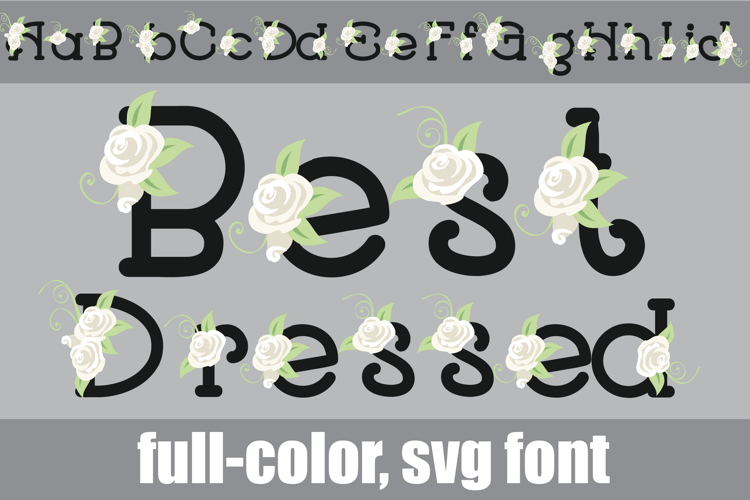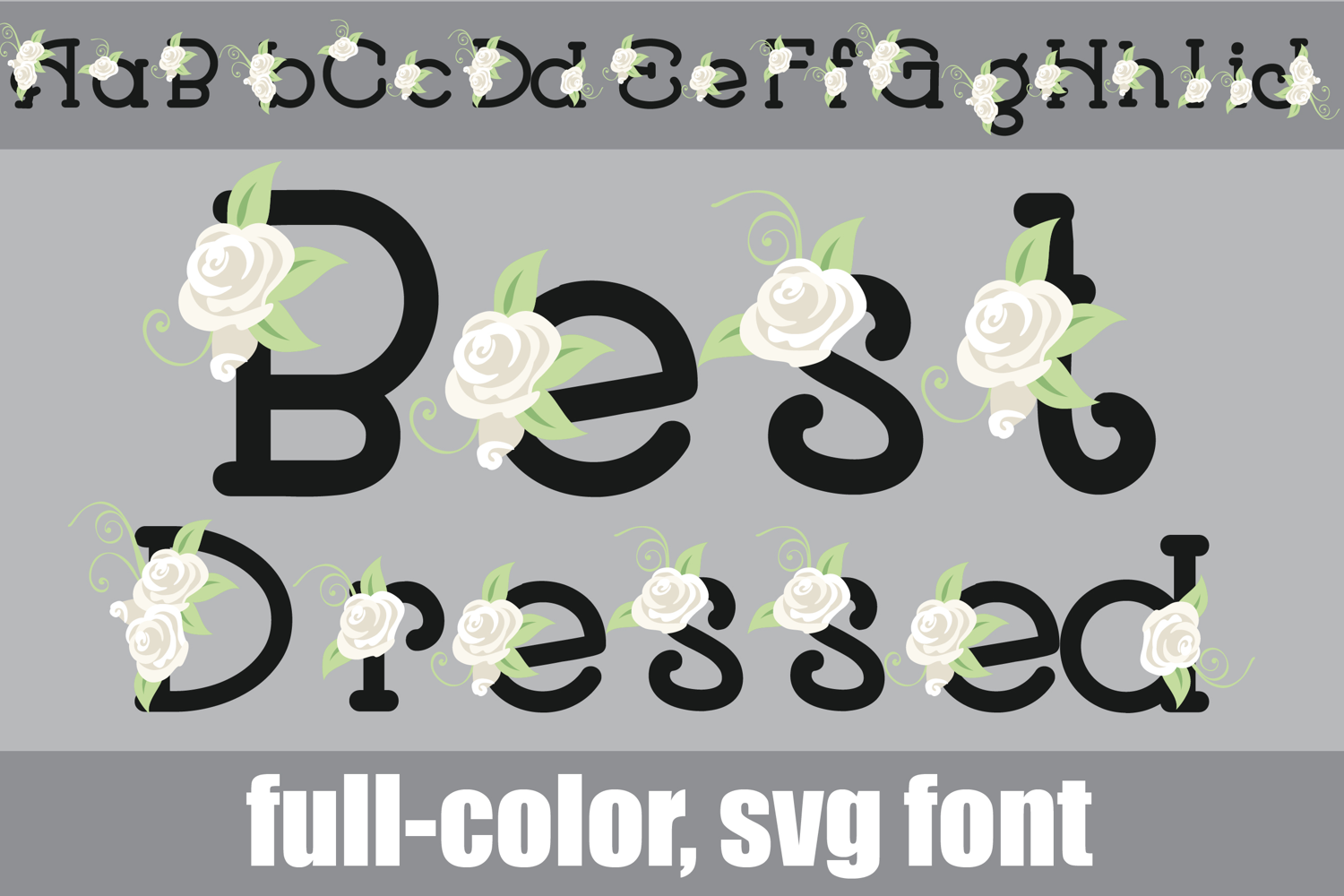
Best Dressed Color Font
This full-color, serif font sports white roses throughout. There is an alt case of additional colors of each letter that you can access through your system's character map.